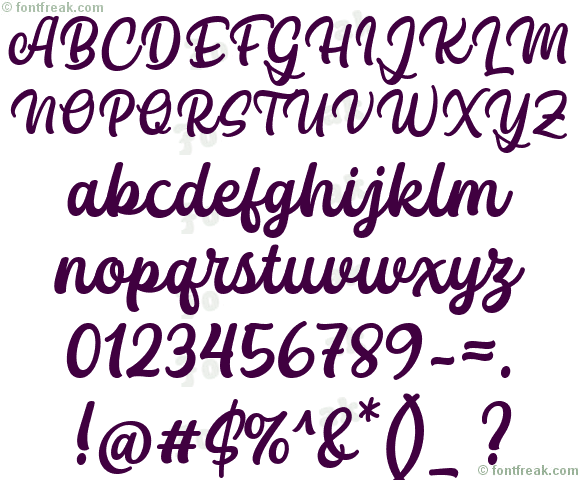
Thank You So Much
The Thank You So Much font by Situjuh Nazara is a delightful script typeface that exudes warmth and charm. With its flowing curves and elegant loops, this font captures the essence of handwritten notes, making it perfect for personal and heartfelt communications. The stroke weight is moderately varied, creating a sense of dynamism while maintaining legibility. The spacing between letters is thoughtfully designed, allowing for a fluid reading experience, which is essential in conveying emotions effectively.
This font is particularly well-suited for a variety of use cases. It shines in wedding invitations, where its romantic flair can set the tone for the special day. Additionally, it is a great choice for greeting cards, allowing senders to express genuine sentiments in a visually appealing way. Restaurant menus can also benefit from its inviting style, enhancing the overall dining experience. Furthermore, the Thank You So Much font can elevate social media graphics, helping content creators engage their audience with a friendly touch.
What sets the Thank You So Much font apart is its unique blend of elegance and approachability. As a typeface that evokes feelings of gratitude and joy, it becomes more than just a font; it transforms the way messages are conveyed. Whether you’re crafting a heartfelt note or designing an inviting menu, the Thank You So Much font free download is an excellent addition to any designer's toolkit, ensuring that your words resonate with warmth and sincerity.